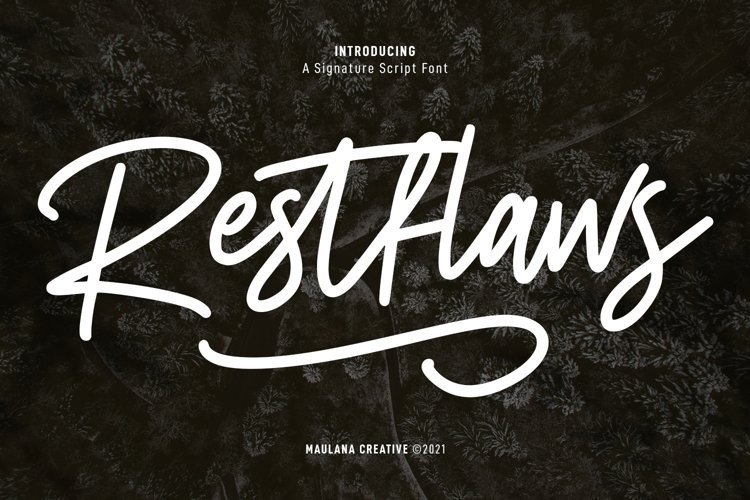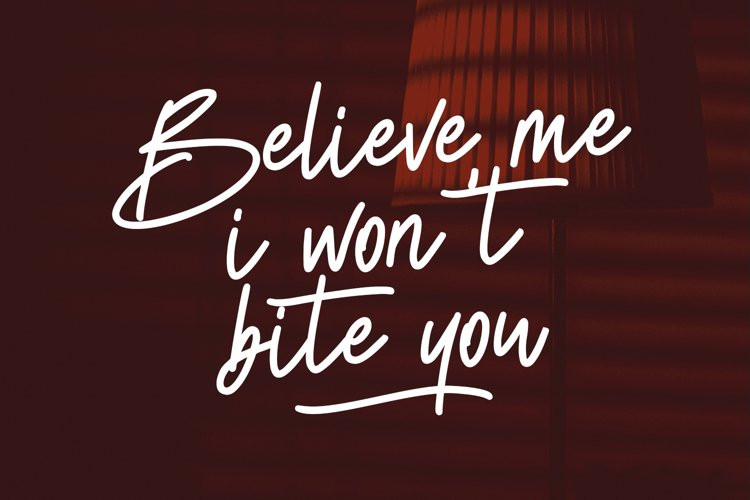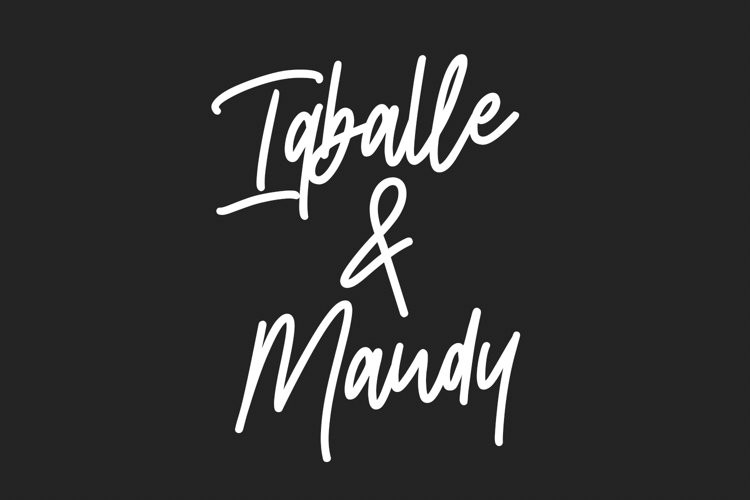
Restfaws Font
RestfawsRestflaws is a casual script font. With medium mono-line stroke, fun character with a bit of ligatures and alternate characters. To give you an extra creative work. Restflaws font support multilingual more than 100+ language. This font is good for logo design, Social media, Movie Titles, Books Titles, a short text even a long text letter and good for your secondary text font with sans or serif. Make a stunning work with Restflaws font.